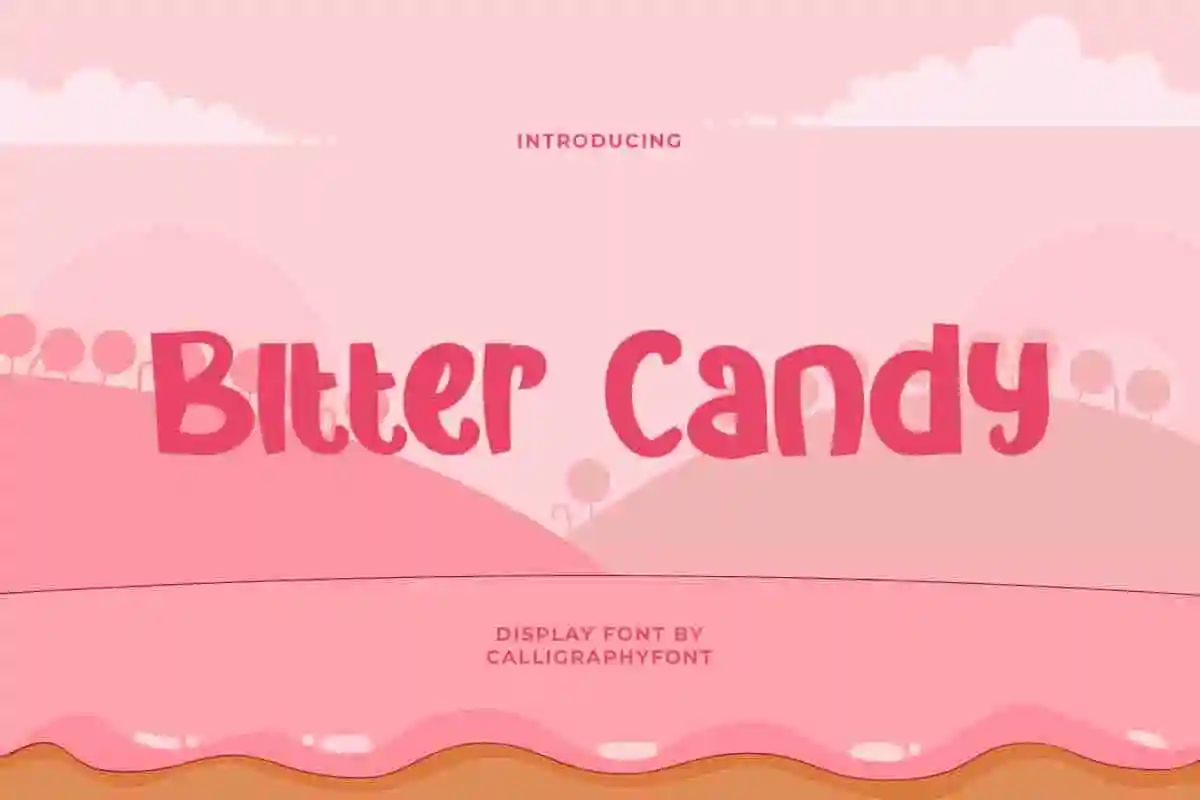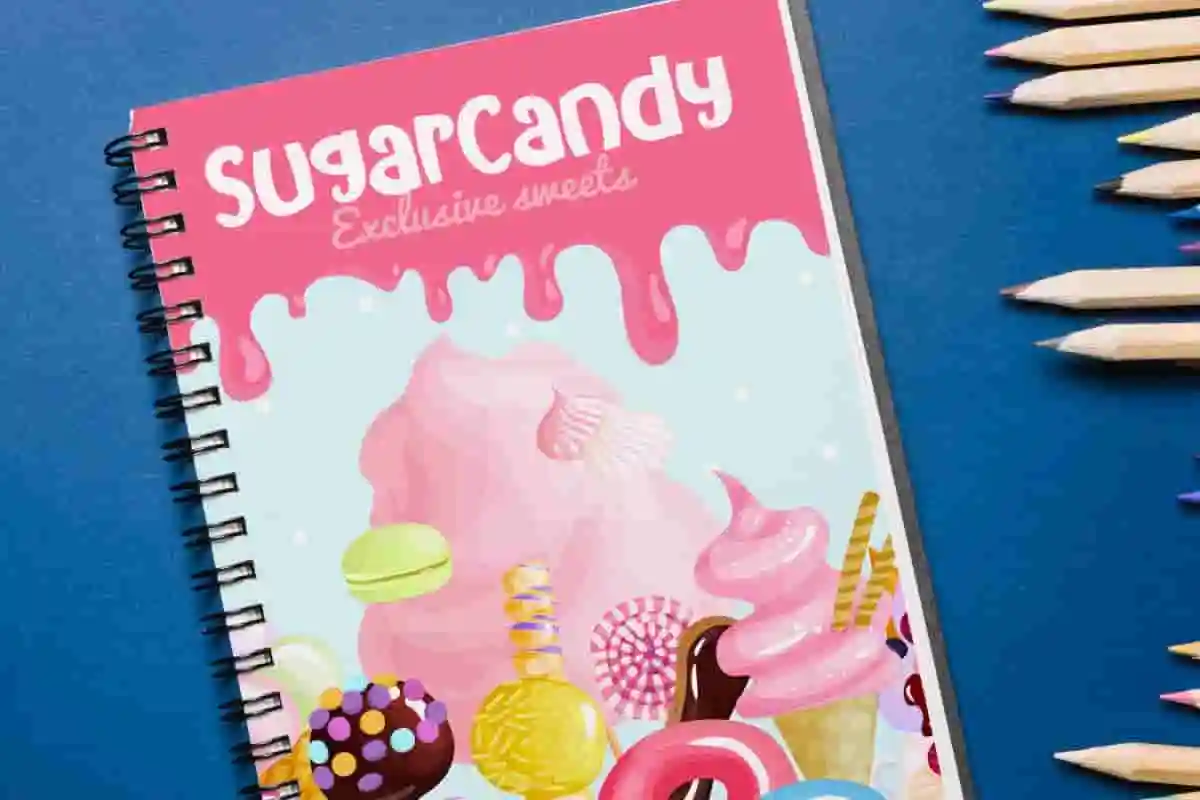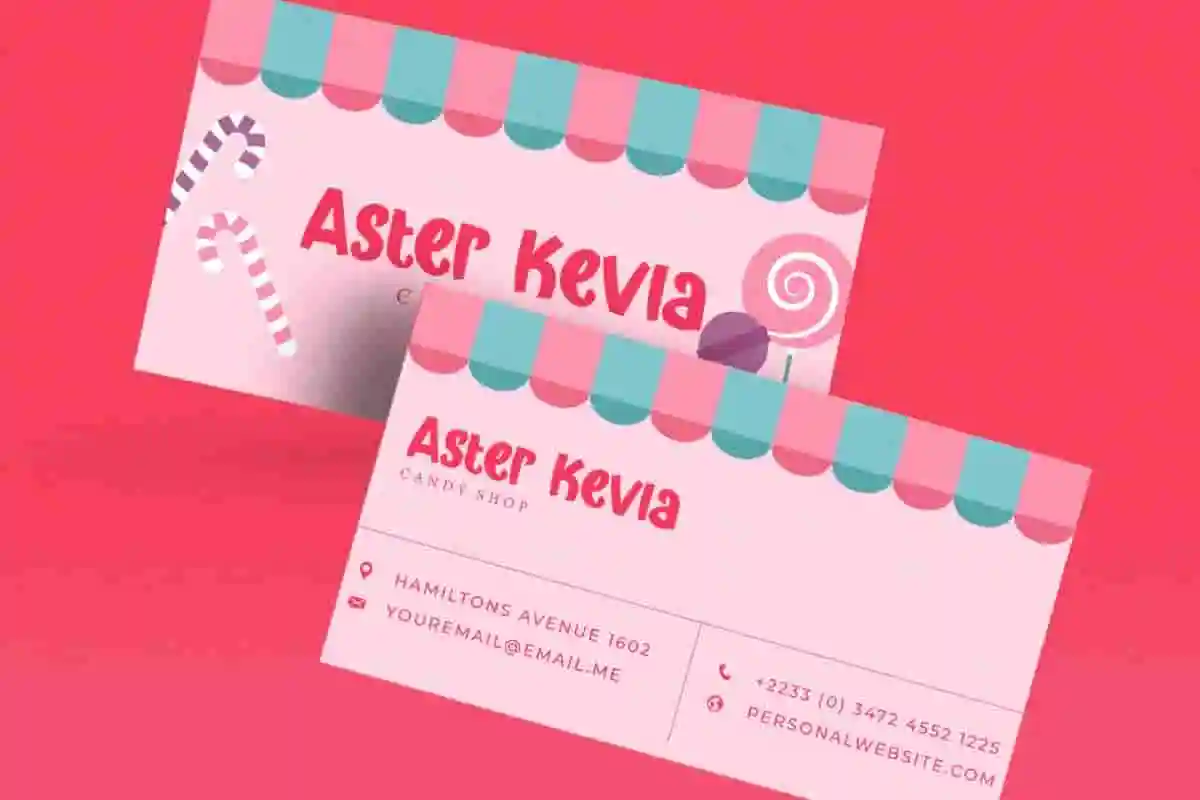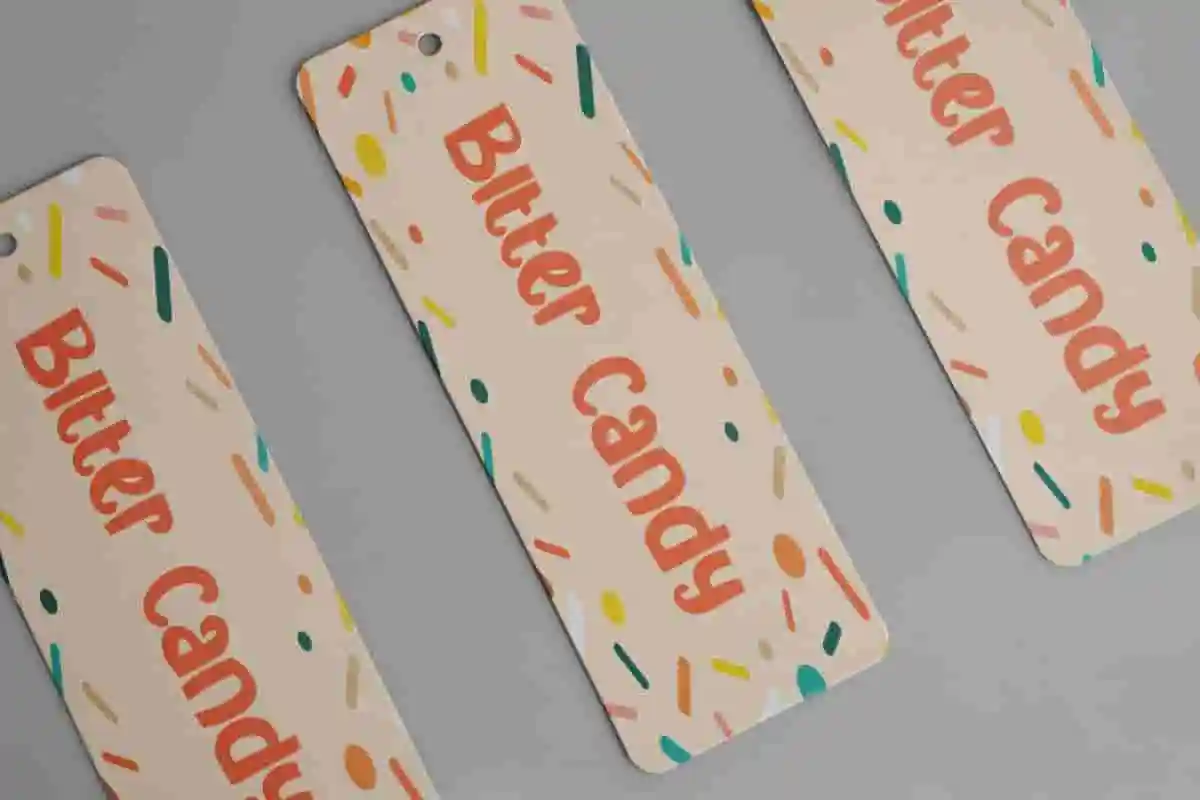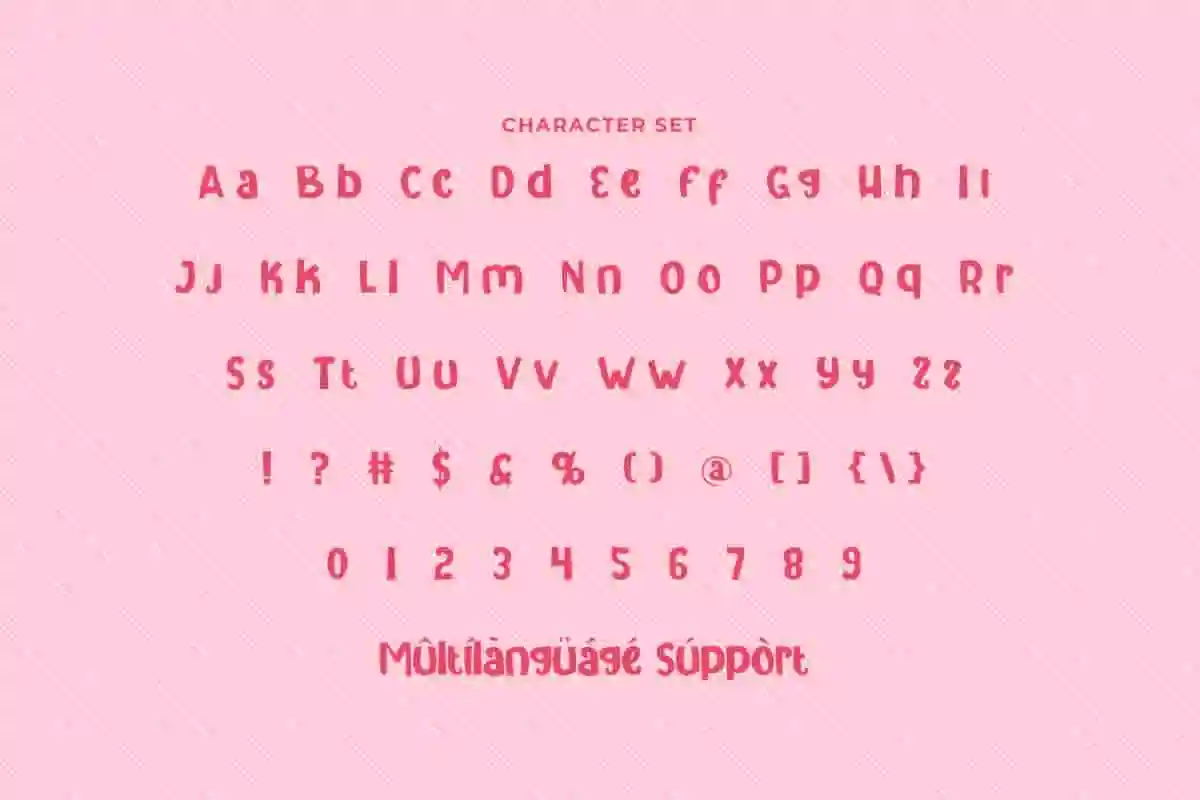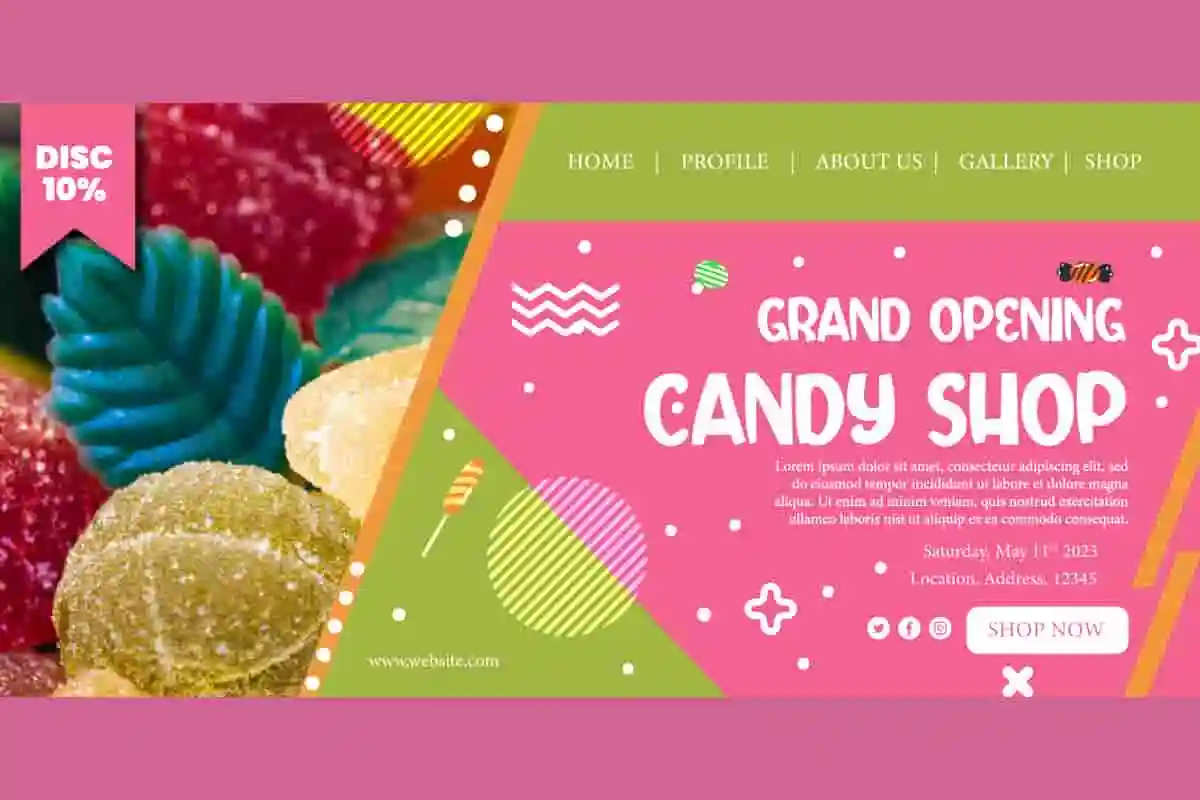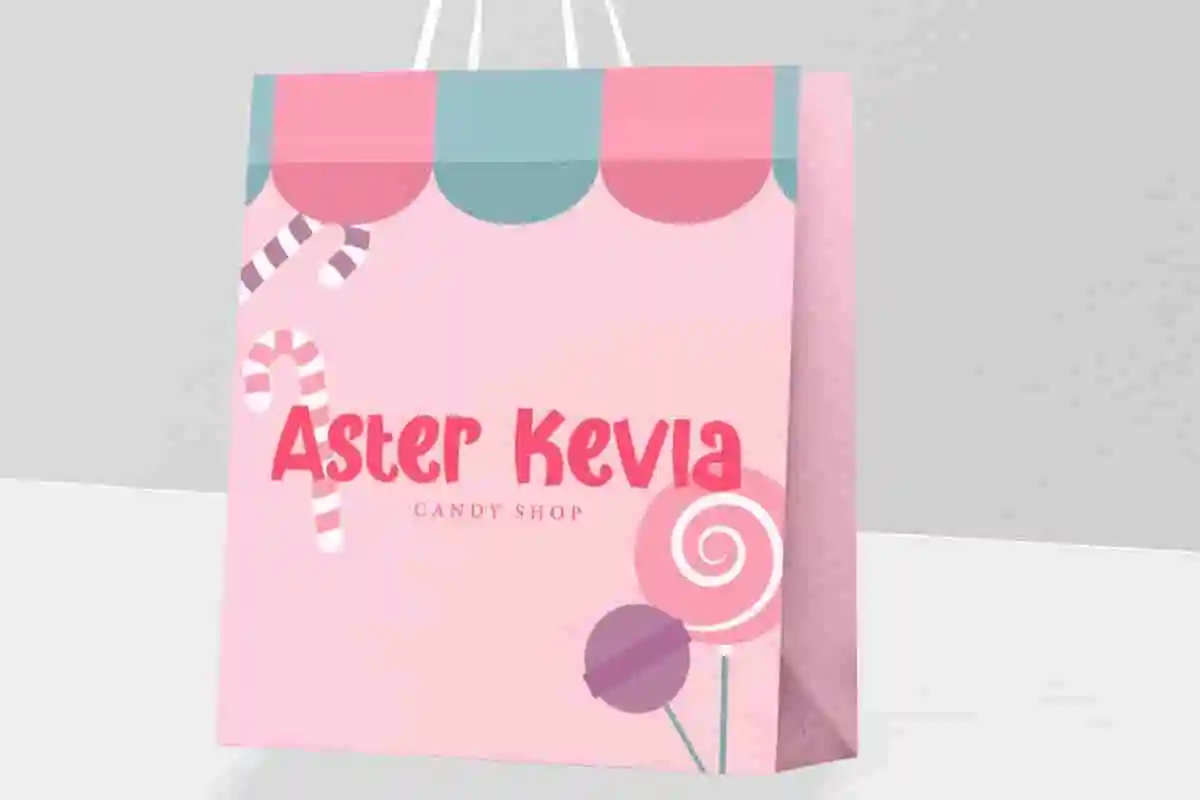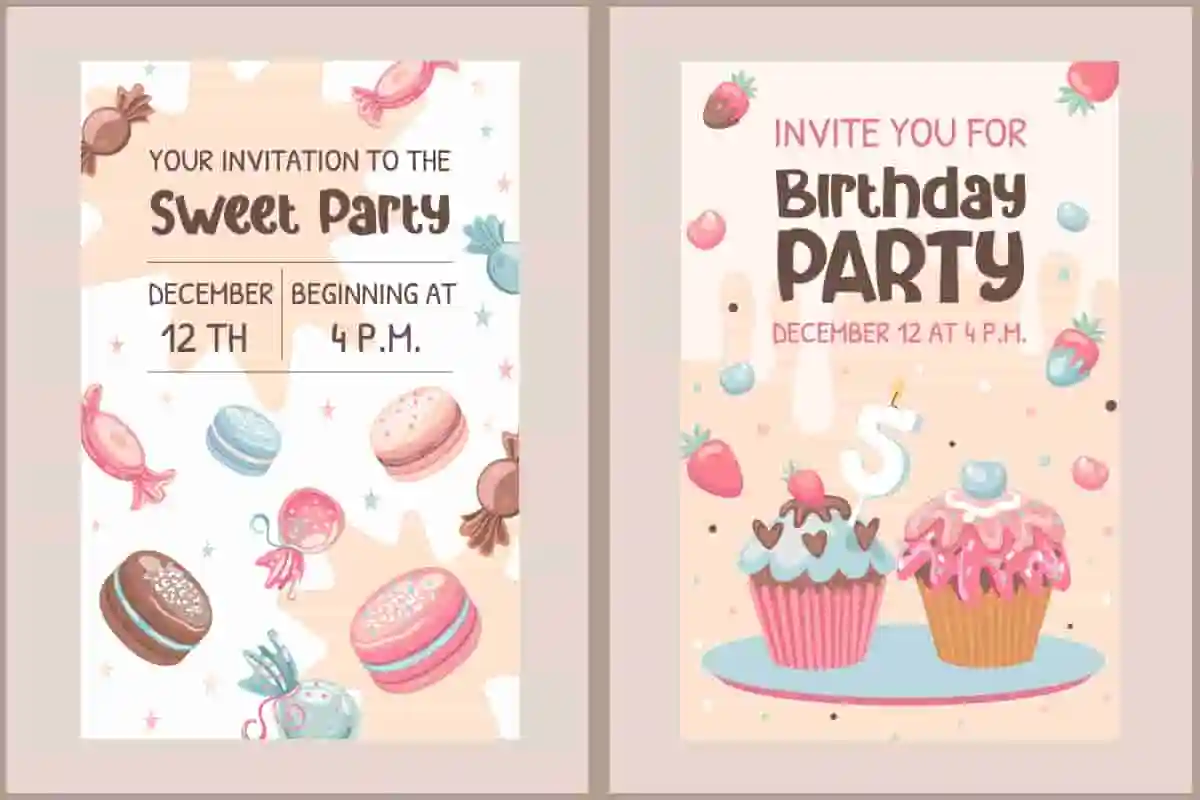
Bitter Candy Font
Bitter Candy Font is a foodist adorable display font with cute shapes. Exclusively created to perfect your design! These letters would be a great choice for birthday invitations, book titles, etc.
Bitter Candy Font is a foodist adorable display font with cute shape. The appearance given by this font is the opposite of its name, sweet and lovable for every design you create, such as brand image, brochure, card, cover, custom design, flyer, header, invitation, label, packaging, photo card, poster, quote, social media post, stationery, sticker, title, website, and anything else that would look sugary with this font!
Are you searching for a font that brings playful energy and bold charm to your designs? Introducing Bitter Candy Display Font, a unique display typeface that blends sweetness with striking personality. Designed to capture attention at first glance, this font is perfect for projects that demand both fun and creativity.
The Bitter Candy Display Font features chunky strokes, smooth curves, and a quirky handwritten style that feels modern yet approachable. It’s ideal for posters, children’s books, product packaging, social media graphics, logos, and branding projects that need a touch of bold sweetness. Whether you’re working on bakery menus, candy shop branding, or playful event invitations, this font makes your designs stand out effortlessly.
One of the highlights of Bitter Candy Display Font is its versatility. It balances a youthful aesthetic with professional readability, making it suitable for both digital and print projects. The font is also easy to use across multiple platforms, ensuring your creative workflow stays smooth.
Bitter Candy Display Font presenting creative creations in each character form that will stand out in any industry, such as accessories, advertising, bakery and pastry, café, comic book, content creator, entertainment, event organizer, fashion, graphic design, handicraft, interior design, kids stuff, movie, printing, publishing, and many more!
Bitter Candy Display Font comes with a full set of Uppercase and Lowercase Basic Characters, Number, a large range of Punctuation and Symbol. The font has also been equipped with multilingual support that is ready to use either on Windows or Mac machines with a simple installation. It’s tested to work well in the Adobe Apps (Illustrator, Adobe InDesign, Adobe Photoshop) CorelDraw, and others. PUA Encode Characters means you can access all the characters easily – Fully accessible without additional design software.